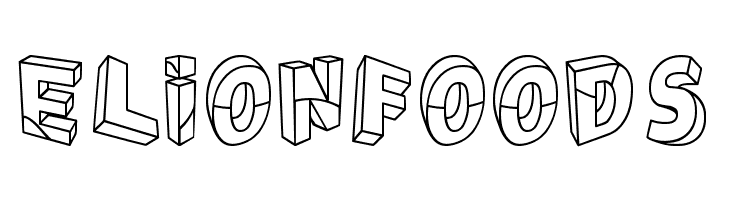
• QR font tfb
A display font mimicking QR codes for each character.
• QUIWO LUSE TFB
A modern, geometric font with a digital, tech-inspired aesthetic.
• Light tfb
A modern, geometric font with clean lines and a minimalistic style.
• BARCODE TFB
A barcode-inspired font with geometric, linear characters.
• bicycle tfb
A decorative font with unique bicycle silhouettes for each character.
• Pycuaf light tfb
A minimalist, geometric font with thin, elongated strokes and a modern aesthetic.
• Pycuaf
A modern, rounded geometric font with uniform strokes and a friendly appearance.
• noteame
A bold, rounded font with a modern, playful aesthetic.
• Love You tfb
A whimsical font with letters encased in heart shapes, perfect for romantic or playful designs.
• klingon font
A bold, angular font with a futuristic, alien-like design.
• Perspectivo Dis tfb
A playful 3D perspective font with dotted outlines and bold geometric shapes.
• Perspectivo tfb
A bold, 3D block-style font with strong outlines and a playful aesthetic.
• ornaments
Ornate decorative elements with vintage and classical motifs.
• Pincel handwrite
A dynamic and expressive handwritten font with fluid strokes and organic shapes.
• Amame tfb
A modern, dotted font with a geometric and digital style.
• Juino net
A bold, decorative 3D font with intricate patterns and a playful style.
• Spoghetti Western tfb
A bold, decorative font with a vintage Western style.
• only revolver tfb
A decorative font using revolver silhouettes for each character.
• chinese zodiac tfb
A decorative font featuring artistic representations of the Chinese zodiac animals.
• Shadded tfb
A bold, three-dimensional serif font with a vintage shadow effect.
• Love you too tfb